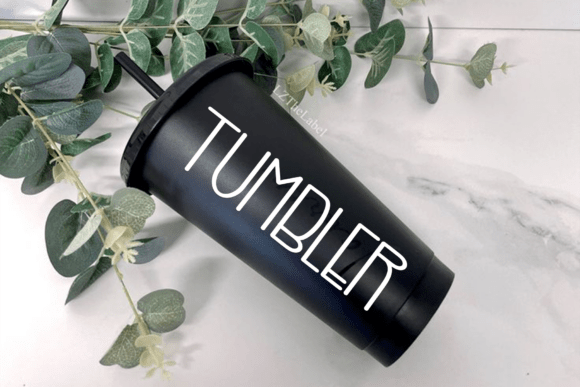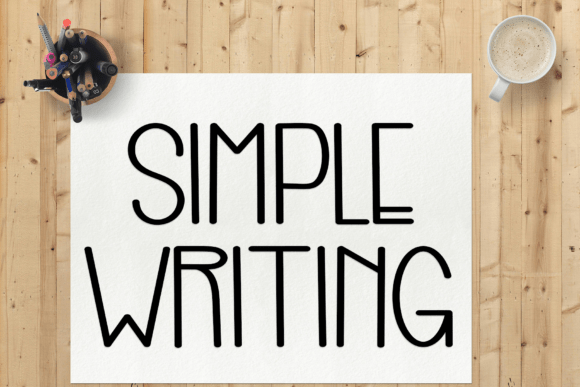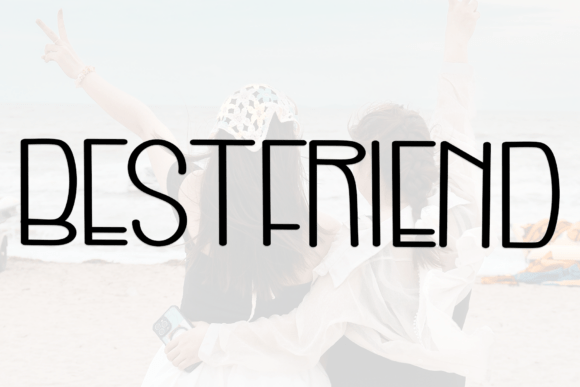
Introduction to Mirror Beauty Font
Mirror Beauty is an elegant and modern sans serif font.
This minimalist and clean vibe can easily apply to your favorite designs such as book covers, magazines, social media posts, invitations, and so much more .
Mirror Beauty Font offers exceptional quality and versatility, making it a valuable addition to your design toolkit. Whether you’re creating for personal projects or commercial use, Mirror Beauty Font delivers professional results.